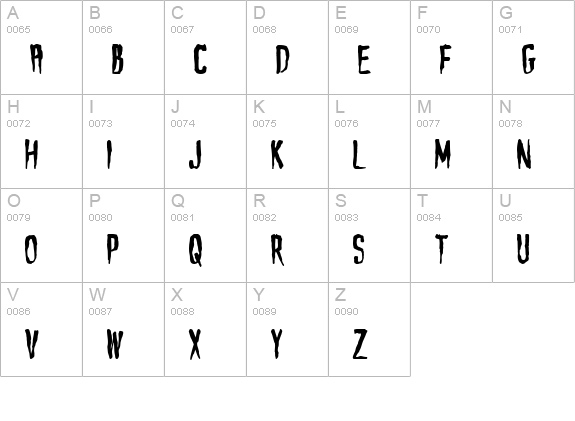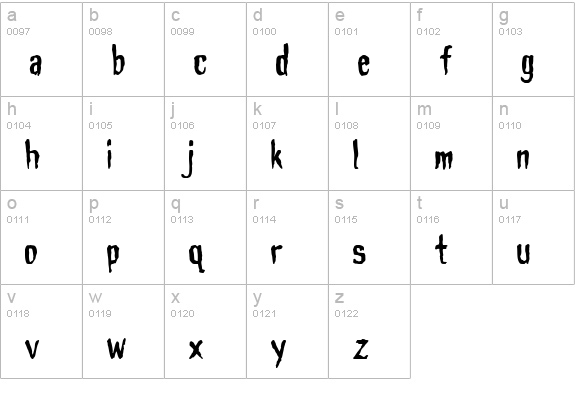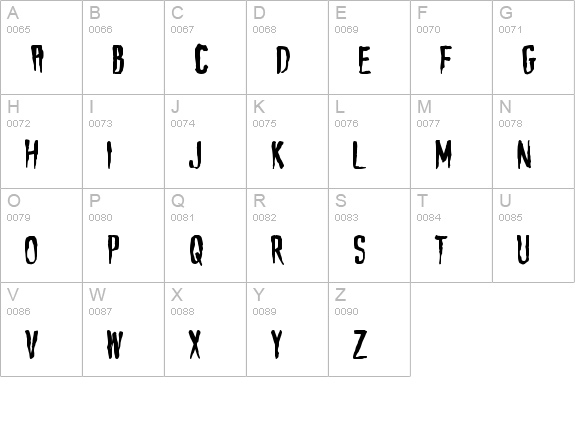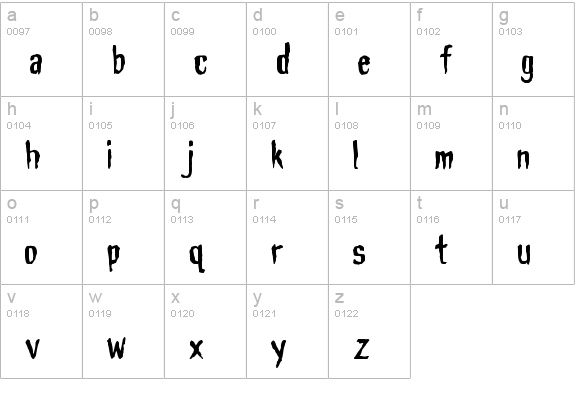
Haunt AOE Font Details
Introducing Haunt AOE, a captivating and mesmerizing font that is sure to leave a lasting impression on any design project. This font exudes an air of mystery and intrigue, perfect for adding a touch of darkness and allure to your creations. With its unique and intricate letterforms, Haunt AOE is designed to evoke a hauntingly beautiful aesthetic. Each character is carefully crafted to maintain a balance between elegance and edginess, making it an ideal choice for a wide range of applications. Whether you're working on a poster, logo, or branding project, Haunt AOE will effortlessly elevate your design to new heights. Its versatility allows it to seamlessly adapt to various themes and styles, adding a touch of sophistication and sophistication to any project. The best part? Haunt AOE is completely free! Yes, you read that right. This remarkable font is freely available to download at FontsMarket.com. Now, you can enhance your designs without breaking the bank. So, what are you waiting for? Unlock the power of Haunt AOE and let your creativity soar. Download this exceptional font today and discover the endless possibilities it holds for your next design venture.